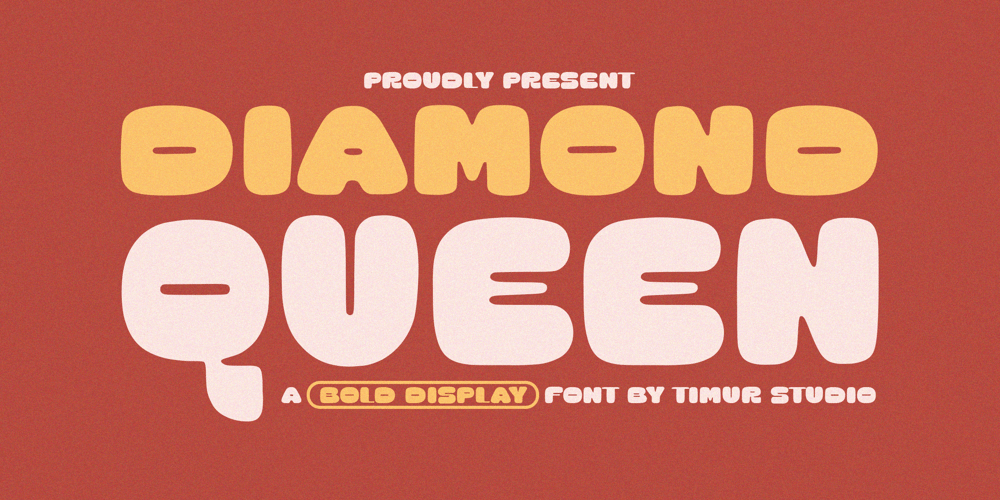
Diamond Queen Font Family was designed by Wara Sigit Tri Pamungkas and published by Timurtype. Diamond Queen contains 1 styles and family package options. Introduced by Timurtype Studio!Diamond Queen is a Bold Display Font This font is a striking bold display font that exudes elegance and grandeur. With its sharp, angular lines and geometric precision, it commands attention and adds a touch of luxury to any design. Perfect for headlines, posters, and high-impact branding, Diamond Queen blends modern sophistication with timeless regality, making it a standout choice for projects that demand both strength and style.Diamond Queen Font also supports multilingualismEnhance your designs with our original fonts, feel free to comment or provide feedback, Enjoy the fonts 😊Thank You